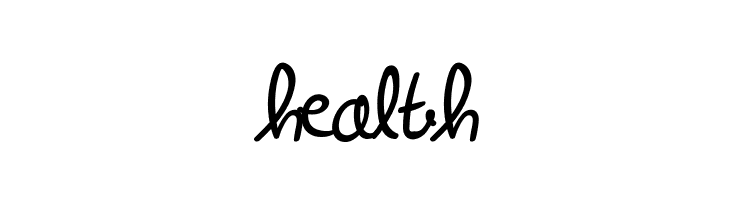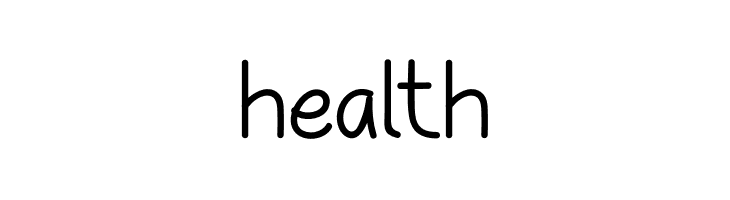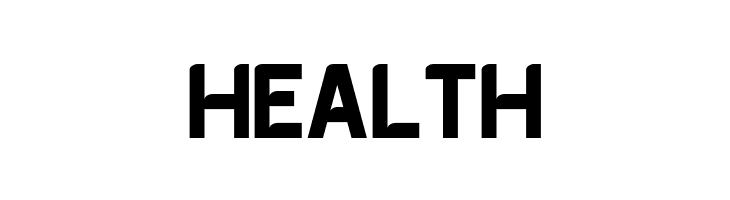
A bold, decorative font with playful swirls and dynamic contrast.
Comic-inspired, character-based decorative font with illustrated glyphs.
A playful, hand-drawn font with a whimsical, cartoonish style.
A classic, elegant script font with intricate, flowing strokes and ornamental details.
An elegant script font with flowing, interconnected letters and dynamic stroke contrast.
A playful, hand-drawn style font with rounded, irregular letterforms.
A playful, modern handwritten font with smooth curves and a lively appearance.
A playful and bold script font with a hand-drawn, whimsical style.
A fluid, handwritten font with a cursive style and connected letters.
A playful, handwritten font with a casual and organic feel.
A bold, geometric font with a sporty, jersey-inspired design.
A decorative and elongated font with a futuristic and bold style.
A lively and elegant script font with flowing, cursive letters and ornate flourishes.
A flowing, cursive script font with elegant loops and swashes.
A bold, decorative font with a starry texture, perfect for creative projects.
An elegant, flowing script font with a handwritten style and delicate line work.
A decorative steampunk font with gear and cog motifs, perfect for vintage-themed designs.
A casual, handwritten-style font with smooth, fluid strokes and a personal touch.
A whimsical, playful script font with flowing, interconnected letters.
A flowing, cursive font with an elegant and sophisticated style.
A modern, geometric sans-serif font with clean lines and a slightly condensed style.
A bold, modern sans-serif font with clean lines and strong readability.
A bold, italicized modern sans-serif font with a dynamic and clean appearance.
A bold, modern sans-serif font with strong geometric shapes.
A bold, italic sans-serif font with a modern and dynamic style.
A modern, extra light sans-serif font with clean lines and geometric shapes.
A modern, light, italic sans-serif font with sleek, fluid lines.
A modern, medium-weight sans-serif font with an italic style, offering clarity and versatility.